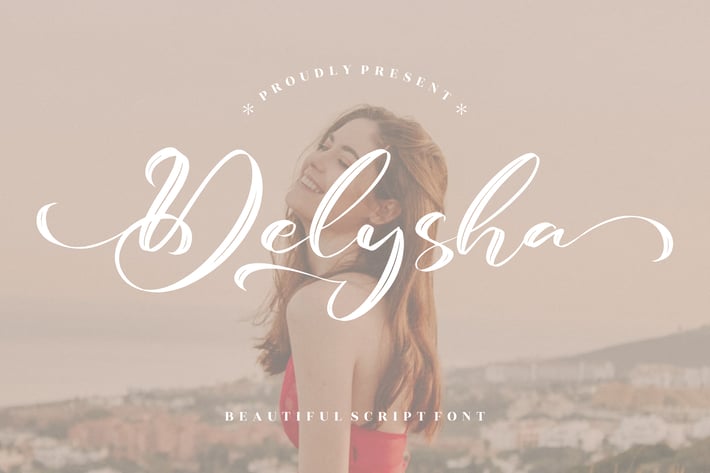
Delysha Script Font
Delysha Script Font brings timeless elegance to your designs with its flowing strokes and graceful curves. This beautiful script font combines classic calligraphy charm with a modern twist, perfect for adding a romantic and sophisticated touch to your creative projects.
Smooth handwritten script with high legibility
Elegant flourishes for decorative design
Modern-classic balance suitable for multiple styles
Includes multilingual characters
Great for both print and digital projects
Wedding invitations and stationery
Luxury branding and logos
Social media quotes and photography overlays
Greeting cards and packaging
* Editorial and personal projects
Let your words dance with elegance — Delysha brings the art of handwritten beauty to every design.